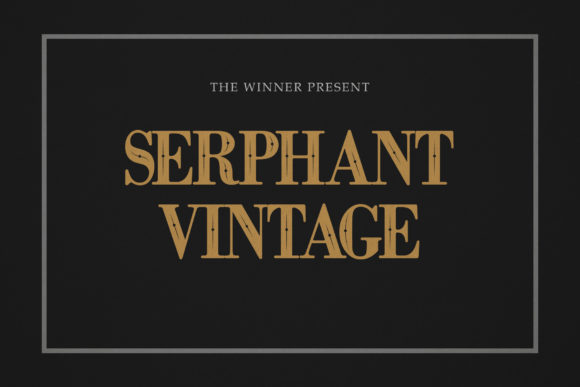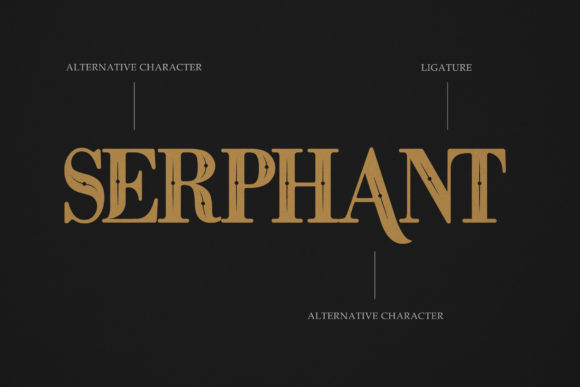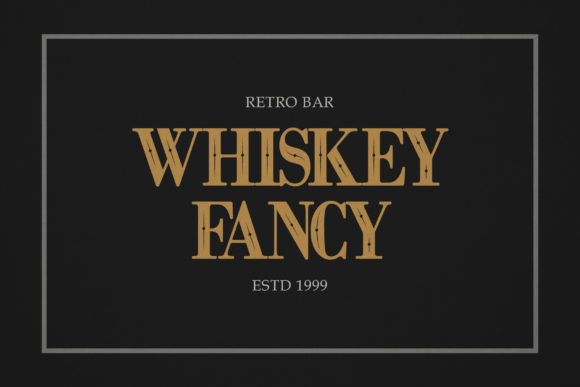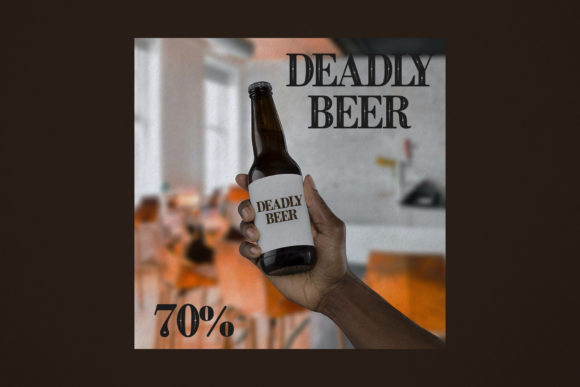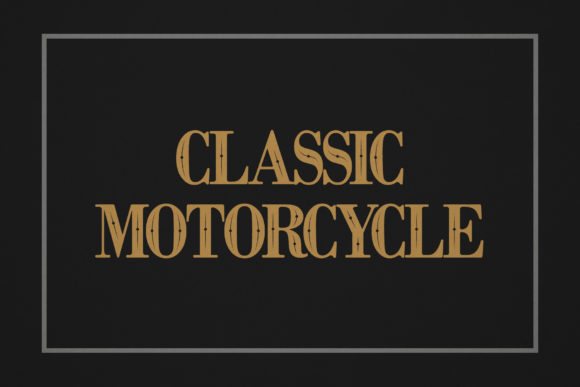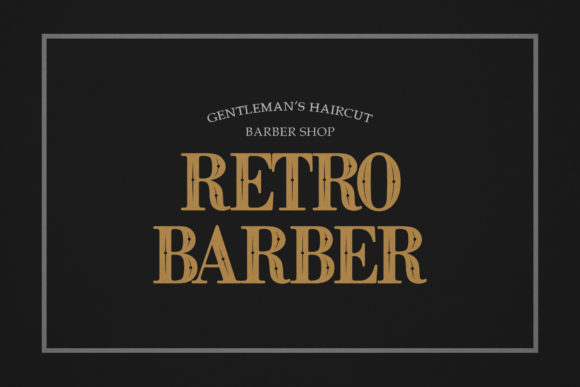
Introduction to Serphant Font Font
Fonts play a crucial role in design, and the Serphant Font font is a typeface that brings both character and versatility to any project. Whether you’re working on a branding project, a website, or a print design, the Serphant Font font offers a unique style that can elevate your work.
Serphant is a vintage serif font perfect for branding, product packaging, invitations, quotes, T-shirts, labels, posters, logos, or any design you want to develop.
Add it to your creative projects, and it will make all your work more attractive and outstanding .
Key Features of Serphant Font Font
Why Choose Serphant Font Font?
The Serphant Font font is more than just a typeface – it’s a design tool that helps you communicate your message with style and clarity. Its unique character set and versatile design make it suitable for a wide range of applications, from elegant invitations to bold headlines.
With its carefully crafted letterforms and balanced proportions, the Serphant Font font ensures readability and visual appeal across all mediums.
What makes Serphant Font font special?
The Serphant Font font stands out with its unique design, exceptional readability, and versatility across various design applications.